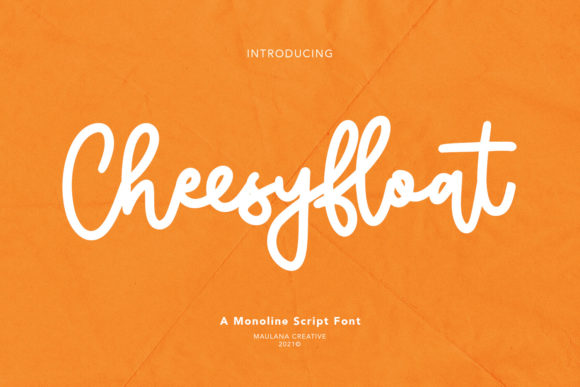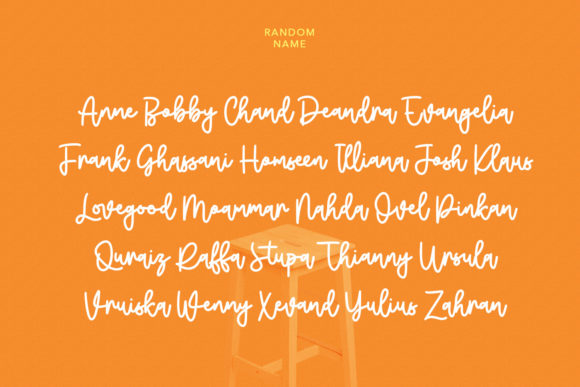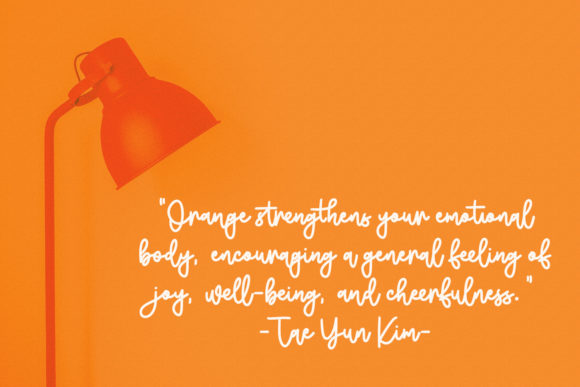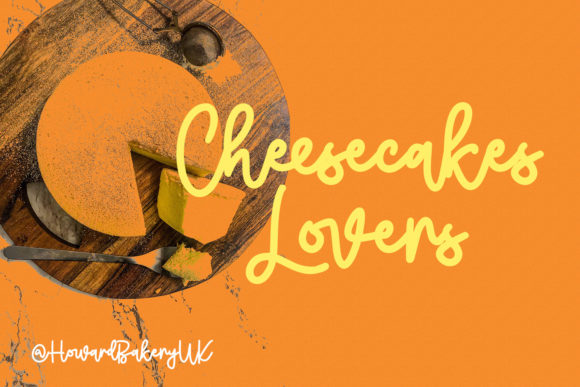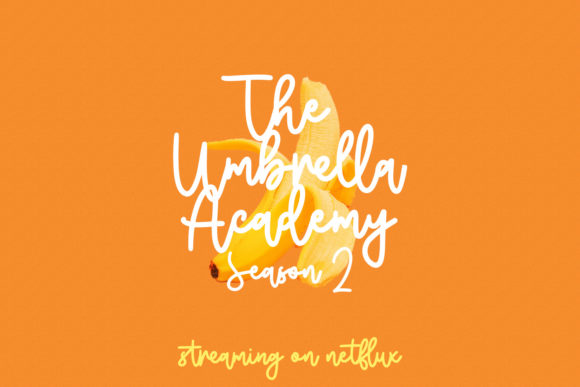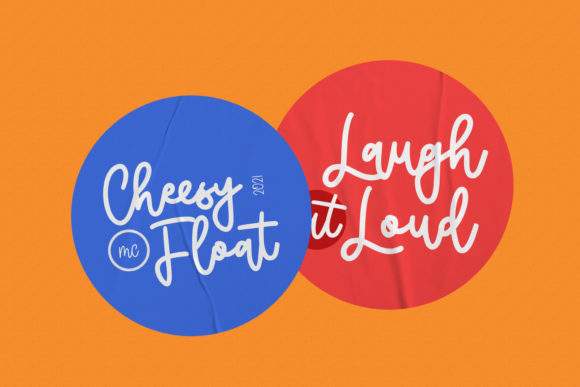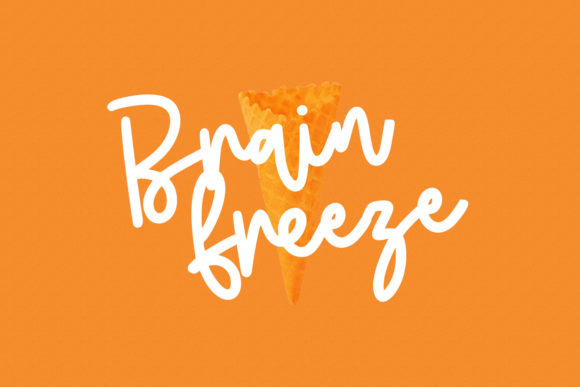
Cheesyfloat Script Font
About Cheesyfloat Script Font
Cheesyfloat Script is a whimsical script font with a relaxed theme, featuring a chic style. No matter the topic, this font will be an incredible asset to your fonts’ library, as it has the potential to elevate any creation.